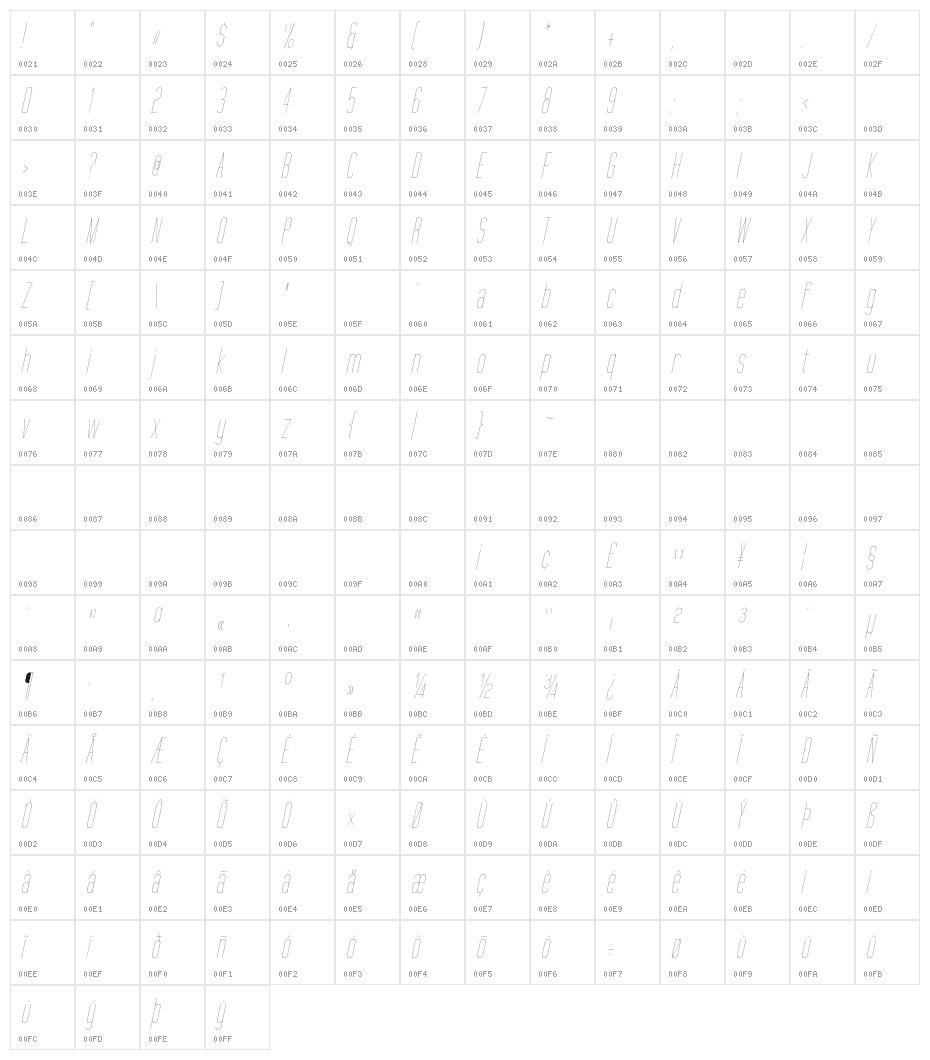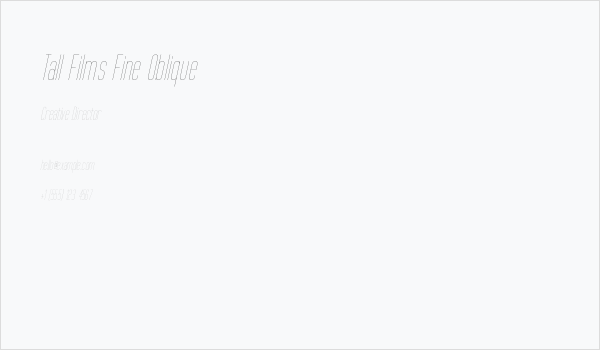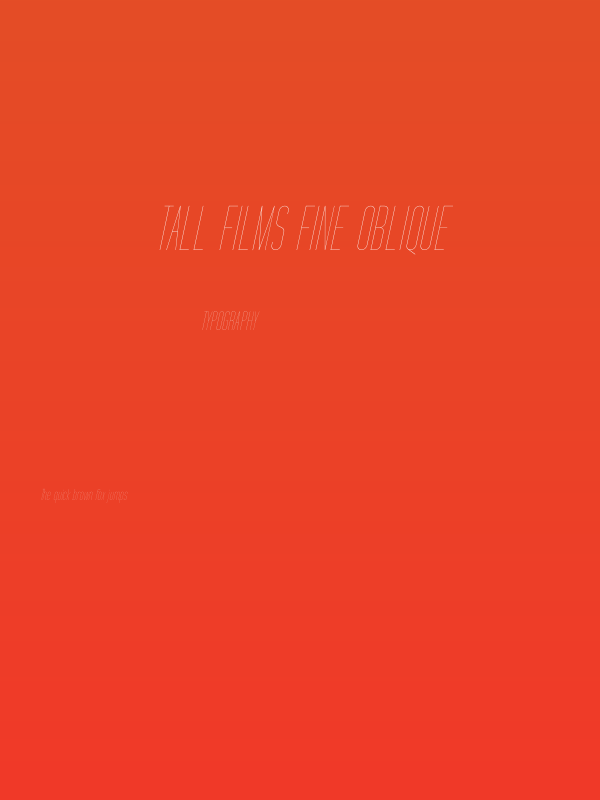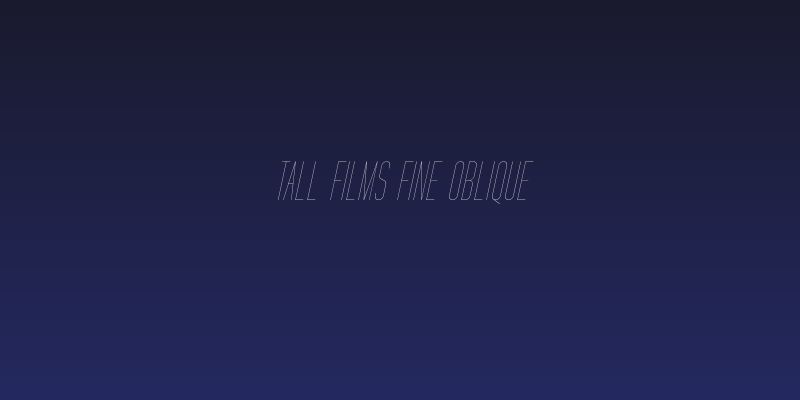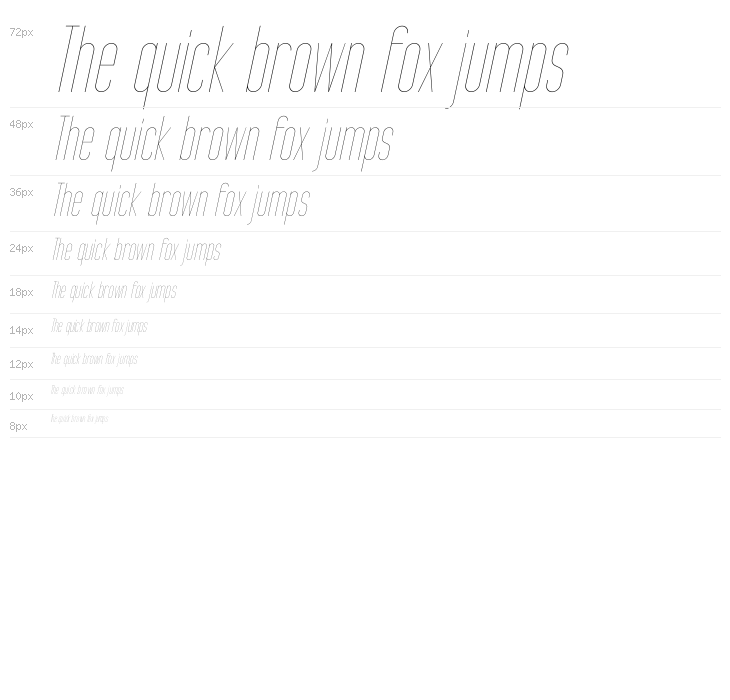
Tall Films Fine Oblique Font
Tall Films Fine Oblique Description
This font features a sleek and elongated design, characterized by its oblique orientation and fine lines. The characters are tall and slender, giving an elegant and modern appearance. The uppercase and lowercase letters maintain a consistent style, with a slight slant that adds a dynamic feel. The numerals and special characters follow the same thin and elongated structure, ensuring uniformity across all glyphs. The overall aesthetic is minimalist, making it suitable for contemporary design projects that require a touch of sophistication.
| Proposed Projects | Ideal for fashion magazines, luxury branding, modern art posters, and high-end product packaging. |